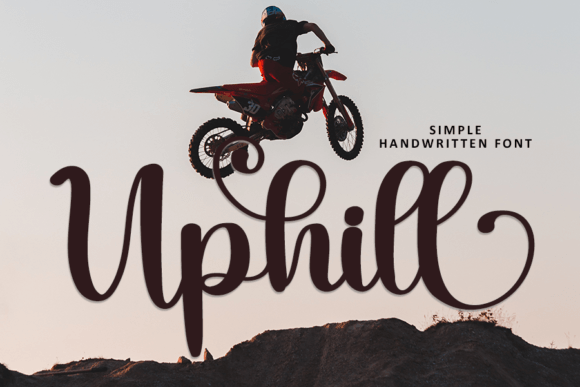
Welcome to the world of Uphill Font, a script font that will transport you to the realm of timeless elegance. Uphill is not just a font; it's an experience, an expression of refined taste and sophistication. Immerse yourself in the world of Uphill and discover the enchanting beauty of written words.
With its contemporary atmosphere and impeccable form, Uphill draws inspiration from the classic calligraphy of ages past. Its graceful strokes and sweeping curves evoke a sense of nostalgia, while its modern twist adds a touch of freshness and vitality. Uphill is a font that truly transcends time, blending the best of tradition with the allure of the present.
If you seek a font that captivates, Uphill is your answer. Its elegant lines and refined details will add a touch of charm to your designs, whether it's a personal note, a captivating logo, or an unforgettable invitation. Uphill elevates the ordinary to the extraordinary, transforming simple words into works of art.
Explore the endless possibilities of Uphill Font. Use it to craft heartfelt love letters that express your deepest emotions with grace and eloquence. Design stunning wedding invitations that reflect the beauty and joy of your special day. Create logos that exude professionalism and sophistication, leaving a lasting impression on your clients.
As a font designed with email design in mind, Uphill is the perfect choice for crafting captivating newsletters and promotional emails that stand out in the crowded inbox. Its elegant curves and legible style ensure that your messages are easy on the eyes, increasing engagement and driving conversions.